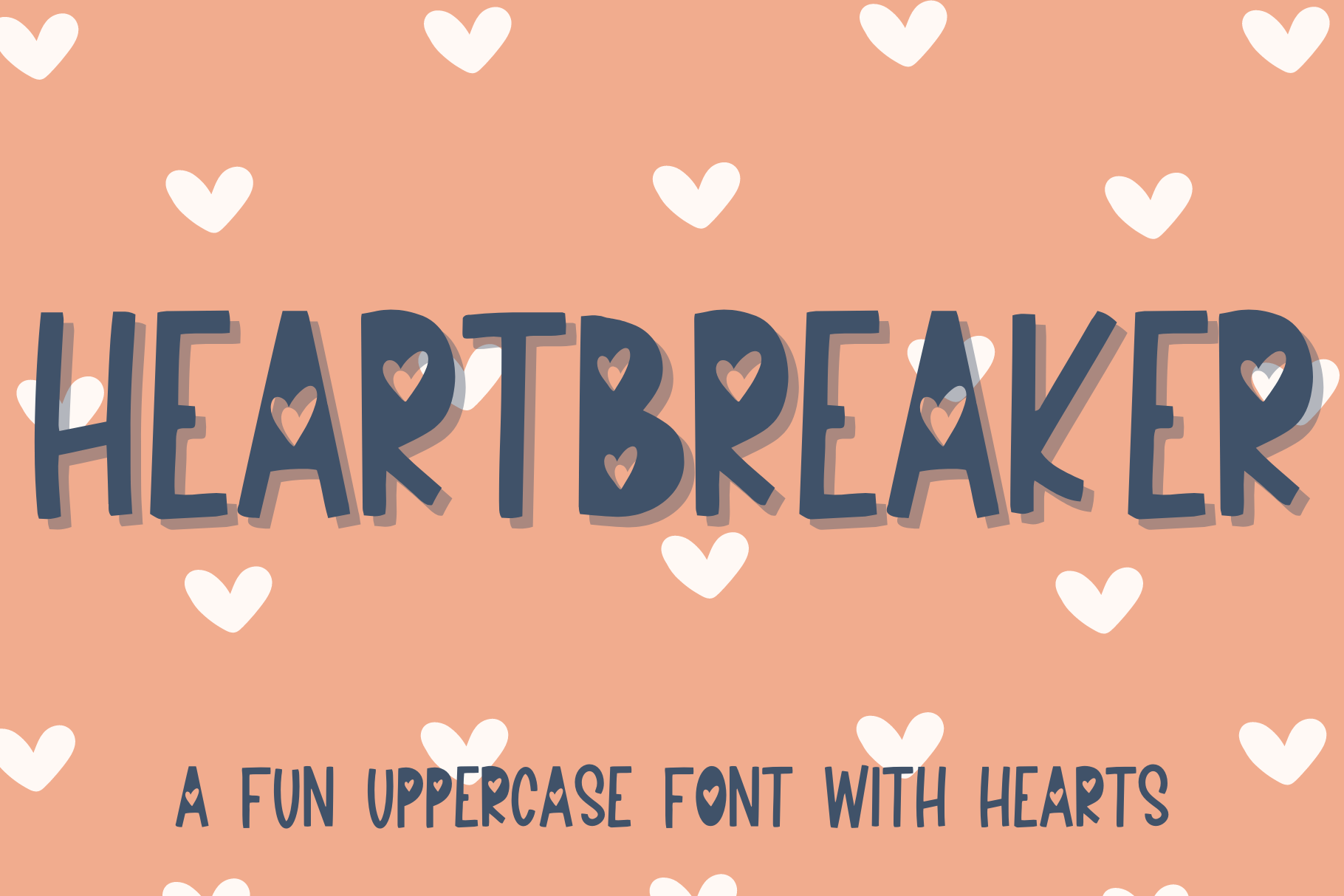
Heartbreaker, Cute Handwritten Font
Introducing Heartbreaker, a fun heart handwritten Font for Cricut and more- a charming and cute addition to your creative projects! Our handwriting font is compatible with Cricut SVGs, Goodnotes, Procreate, and many other programs. With its playful and fun handwriting style, it adds a touch of whimsy and personality to any project. Whether you're crafting Valentine's Day cards, scrapbooking, or designing SVG files, this font will bring your creations to life. Get ready to impress with our amazing Cricut font collection and unlock endless possibilities for your artistic endeavors!